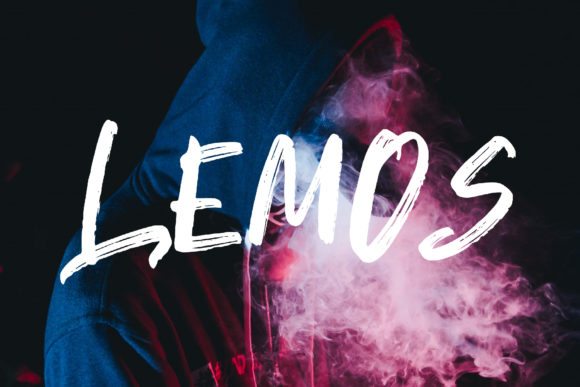
Introducing Lemos Font - The Key to Unlocking Design Elegance and Captivating Expressions
Embark on a typographic journey with Lemos Font, a display font crafted to elevate your designs to new heights of sophistication and charm. Inspired by the strokes of a masterful brush pen, Lemos exudes an incredibly versatile style that adapts seamlessly to a myriad of creative endeavors.
Unleash your imagination and delve into a world of possibilities with Lemos. Its bold and distinctive characters possess an inherent elegance that commands attention, making them the perfect choice for headlines, posters, branding, and any project seeking to leave a lasting impression. Experience the allure of Lemos and discover why it's the font of choice for discerning designers and typography enthusiasts alike.
Immerse yourself in the boundless creativity that Lemos offers. Its fluid lines and expressive strokes evoke a sense of dynamism, while its carefully crafted letterforms ensure exceptional legibility. Whether you're designing for print or digital media, Lemos effortlessly enhances your message, captivating audiences with its undeniable charm.
With Lemos, the boundaries of creativity dissolve, making it the ultimate font for expressing your unique vision. Its versatility extends beyond traditional design realms, inviting you to explore the world of social media graphics, website design, product packaging, and countless other applications. Lemos empowers you to communicate your ideas with unrivaled impact and leave an unforgettable mark on your audience.
Elevate your designs to new heights of elegance and distinction with Lemos Font. Its remarkable versatility and captivating aesthetics make it the perfect choice for designers seeking to make a statement. Experience the transformative power of Lemos and unlock a world of creative possibilities.